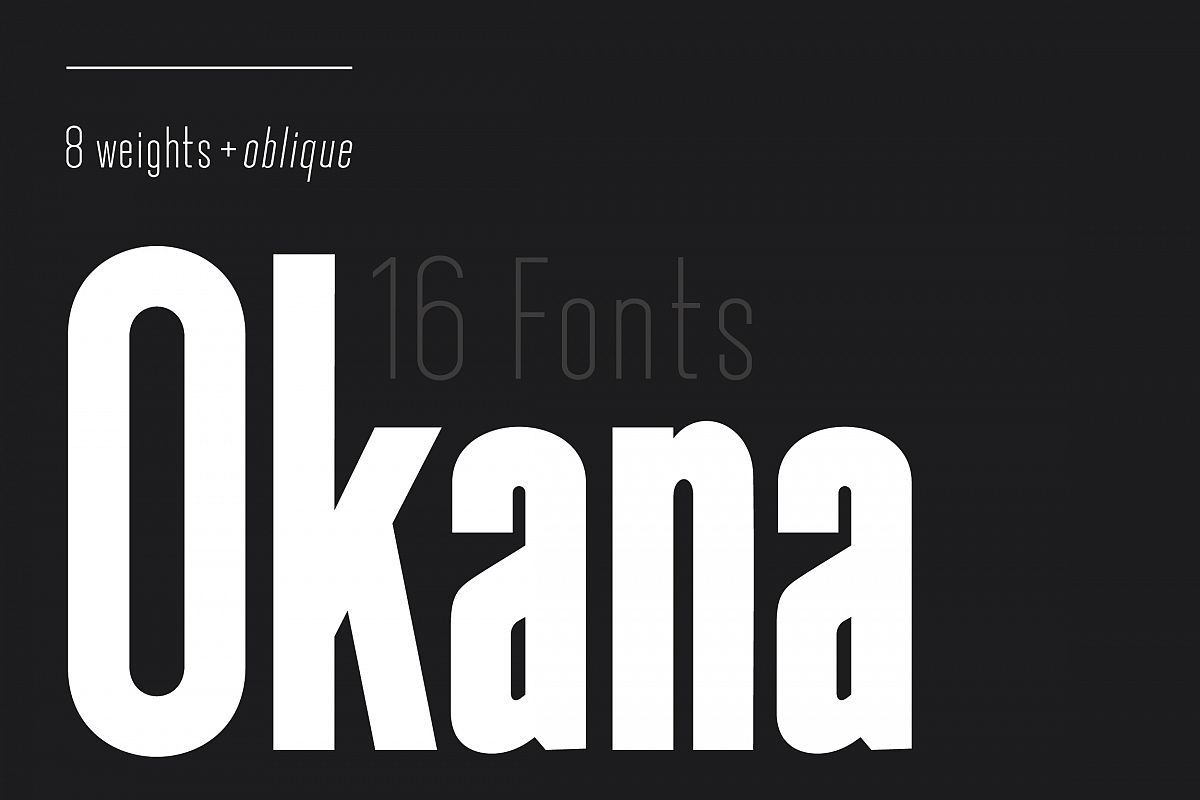
Okana - Sans Serif Font
Okana is a geometric sans serif font family. It comes in 16 styles, 8 uprights and matching obliques.
Easy to use font for creating beautiful layouts for posters, social media, book covers, headlines, etc.